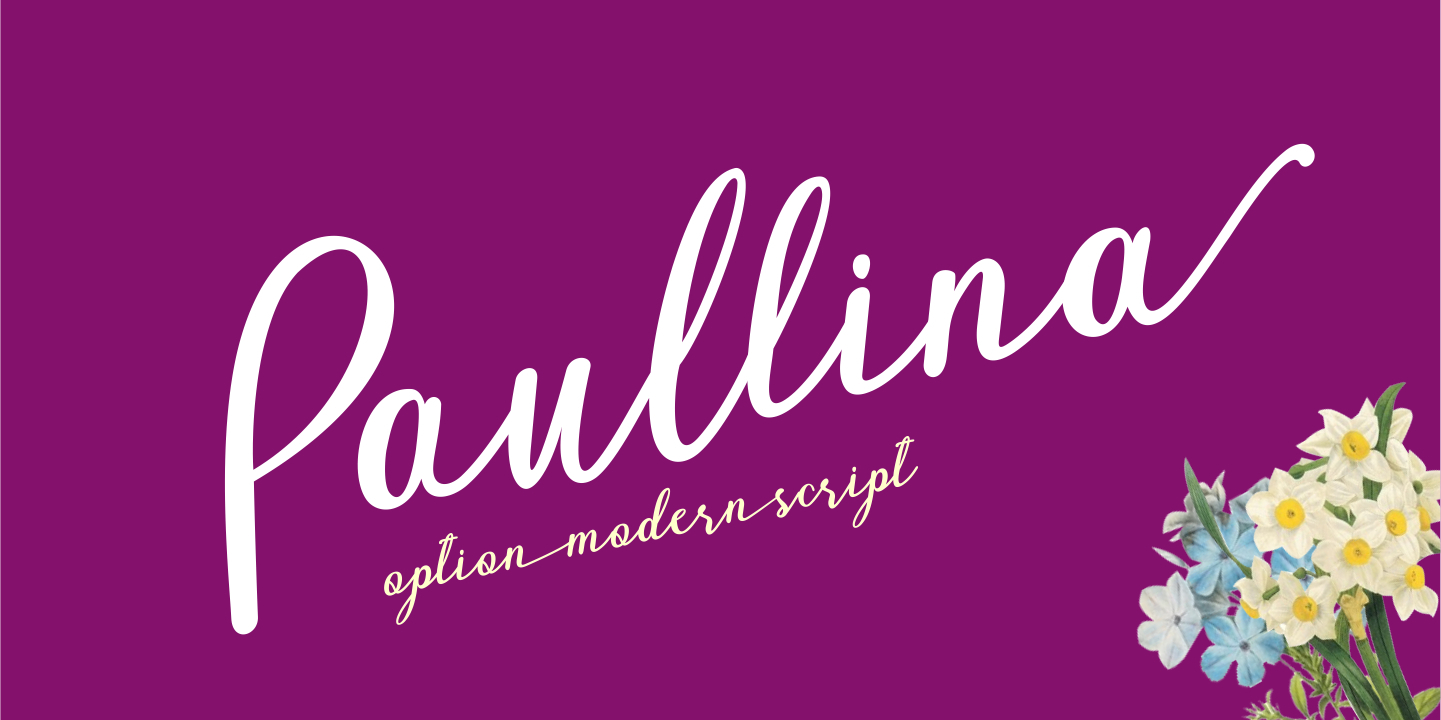
Paullina is a script font published by Genesislab.
Paullina is the kind of modern script and font style that is simple with a variety of options. It is very easy add it to your artistic creations.
Paullina features over 996 glyphs and is perfectly suited to the growing market today. You can use this font to add a fun and feminine feeling. It is trendy and a wonderful way to highlight your party celebration, because this font support such as invitations for weddings, parties, graduations, birthdays, meetings, and other.